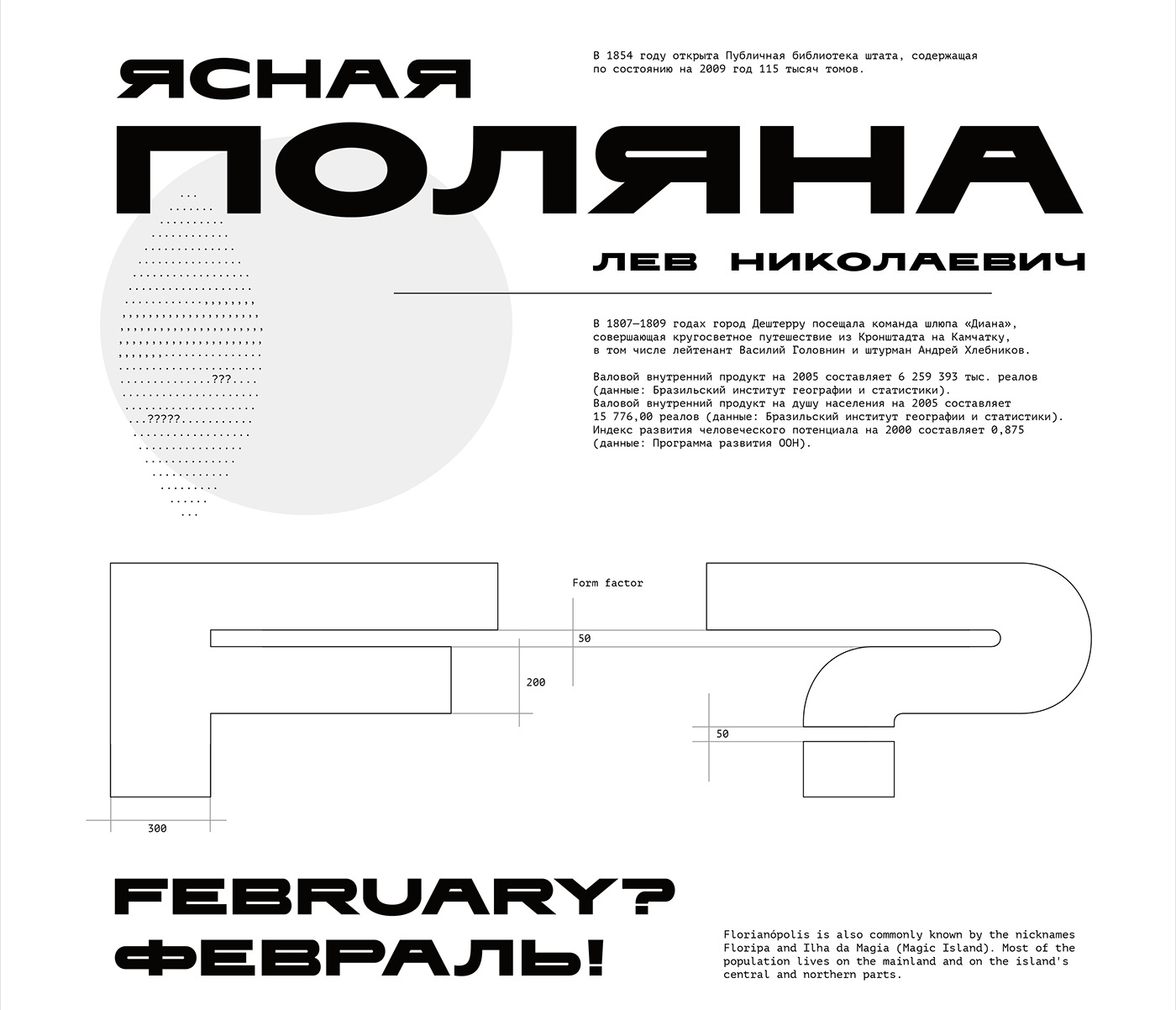
Floripa Sans Serif Font
This is modern fashion sans serif font, every single letters have been carefully crafted to make your text looks unique. It is good looking as header and as text both. Use it in your projects in such areas as robots&androids, hi-tech, future, virtual reality, space, sport and many others.